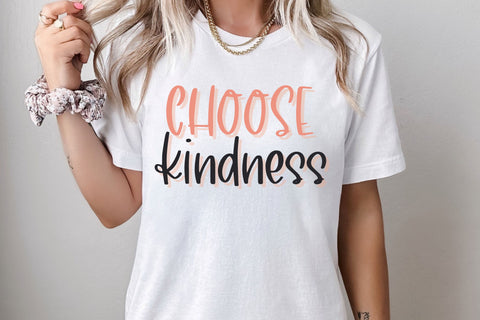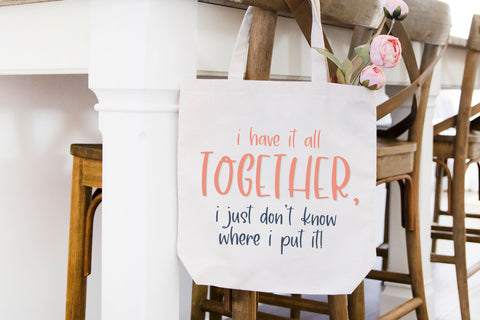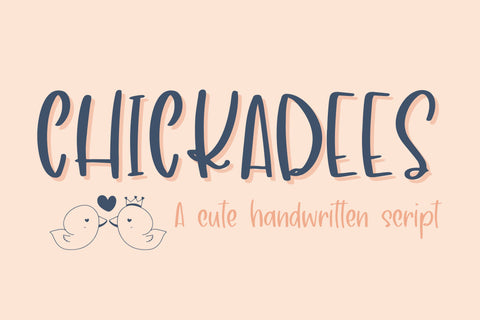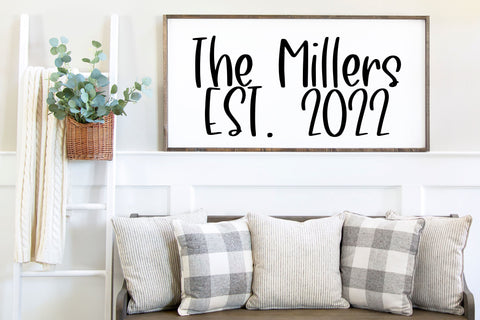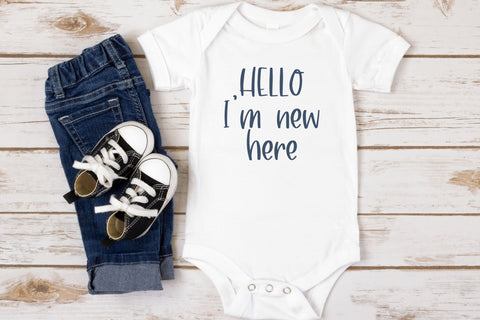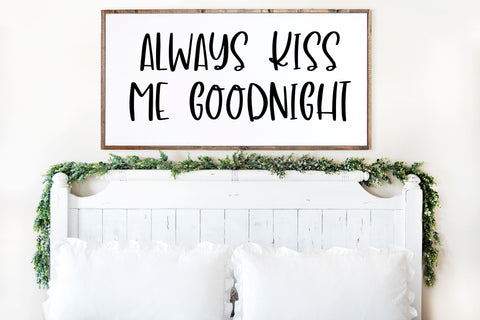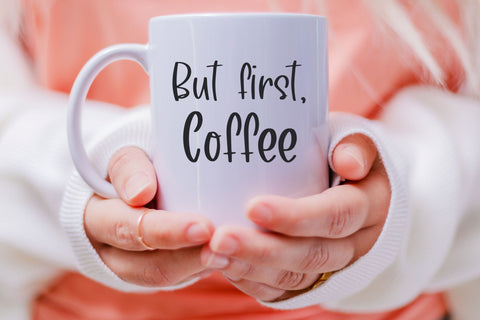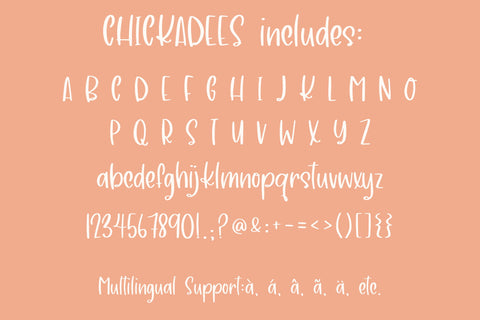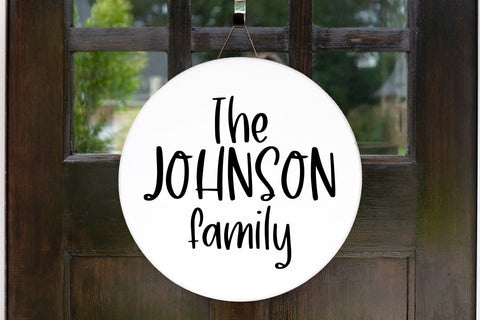
Chickadees, A cute handwritten font for Cricut & More, Cute Script
Introducing Chickadees Handwritten Font for Cricut - a charming and fun addition to your creative projects! Our handwriting font is compatible with Cricut SVGs, Goodnotes, Procreate, and many other programs. With its playful and fun handwriting style, it adds a touch of whimsy and personality to any project. Whether you're crafting cards, journaling, or designing SVG files, this font will bring your creations to life. Get ready to impress with our amazing Cricut font collection and unlock endless possibilities for your artistic endeavors!